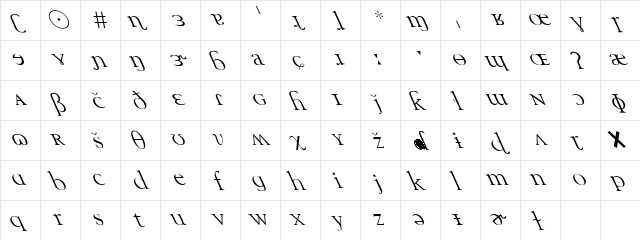
Tech Phonetic Extreme Lefti Regular
Design Context for Tech Phonetic Extreme Lefti Typeface
Tech Phonetic Extreme Lefti channels digital-age aesthetics through its sharp, structured letterforms — ideal for brands that want to signal innovation.